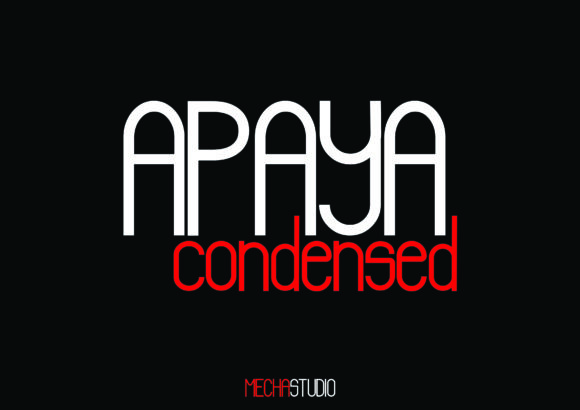
Introducing Apaya Font: A Modern Sans Serif Display Font
Are you looking for a font that can elevate your design game? Look no further than Apaya Font, a modern sans serif display font that is perfect for a variety of creative projects. In this article, we’ll dive into the features and benefits of Apaya Font, and explore how it can be used to enhance your logo design, social media, movie titles, book titles, and more.
What is Apaya Font?
Apaya Font is a sleek and contemporary sans serif display font that is designed to make a statement. Its clean lines, simple shapes, and bold typography make it perfect for grabbing attention and conveying a message with clarity and style. Whether you’re a designer, craftsperson, or DIY enthusiast, Apaya Font is an excellent choice for anyone looking to add a touch of modern sophistication to their projects.
Key Features of Apaya Font
So, what sets Apaya Font apart from other fonts? Here are some of its key features:
- Modern sans serif design: Apaya Font boasts a fresh and modern sans serif design that is perfect for creating a lasting impression.
- Display font: With its bold and eye-catching design, Apaya Font is ideal for use in display settings, such as headings, titles, and captions.
- Versatile: Apaya Font is suitable for a wide range of projects, from logo design and social media graphics to movie titles, book titles, and more.
Use Cases for Apaya Font
So, how can you use Apaya Font in your creative projects? Here are some ideas to get you started:
- Logo design: Apaya Font is perfect for creating modern and memorable logos that will help your brand stand out.
- Social media graphics: Use Apaya Font to create eye-catching social media graphics that will grab attention and drive engagement.
- Movie titles: Apaya Font is ideal for creating bold and dramatic movie titles that will make a lasting impression.
- Book titles: Use Apaya Font to create stylish and attention-grabbing book titles that will make your publication stand out.
- Short text and long text: Whether you’re working with short phrases or longer blocks of text, Apaya Font is designed to be legible and easy to read.
Benefits of Using Apaya Font
So, why should you choose Apaya Font for your next project? Here are some benefits to consider:
- Unique and memorable: Apaya Font is designed to be distinctive and memorable, making it perfect for creating a lasting impression.
- Easy to read: With its clean lines and simple shapes, Apaya Font is easy to read and understand, even at smaller sizes.
- Versatile: Apaya Font can be used in a wide range of projects and applications, making it a great addition to any design toolkit.
Tips for Using Apaya Font
Here are some tips for getting the most out of Apaya Font:
- Experiment with different sizes: Apaya Font looks great at a range of sizes, from large display headings to smaller body text.
- Play with color: Apaya Font can be used with a wide range of colors and textures to create a unique and eye-catching effect.
- Combine with other fonts: Apaya Font can be paired with other fonts to create a unique and visually appealing typography scheme.
In conclusion, Apaya Font is a modern sans serif display font that is perfect for designers, craftspersons, and DIY enthusiasts looking to add a touch of sophistication to their projects. With its clean lines, simple shapes, and bold typography, Apaya Font is ideal for a wide range of creative applications, from logo design and social media graphics to movie titles and book titles. Whether you’re looking to create a lasting impression or simply want to elevate your design game, Apaya Font is an excellent choice.